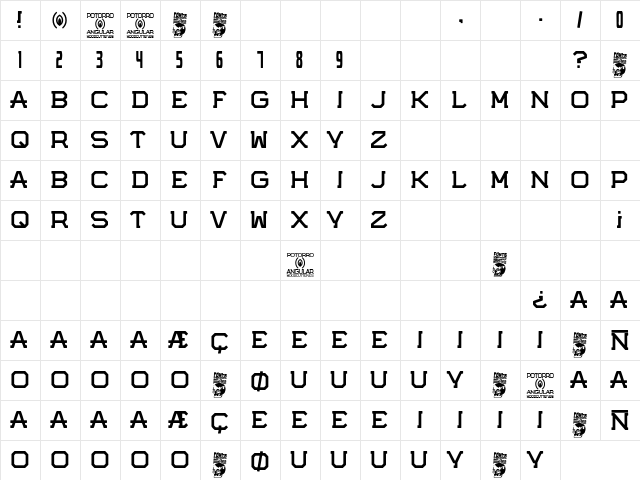
Potorro Angular Regular
| Designer | Woodcutter Manero |
Design Context for Potorro Angular Typeface
Potorro Angular offers clean, dependable letterforms without strong stylistic allegiance, making it a practical choice for designers who need flexibility.